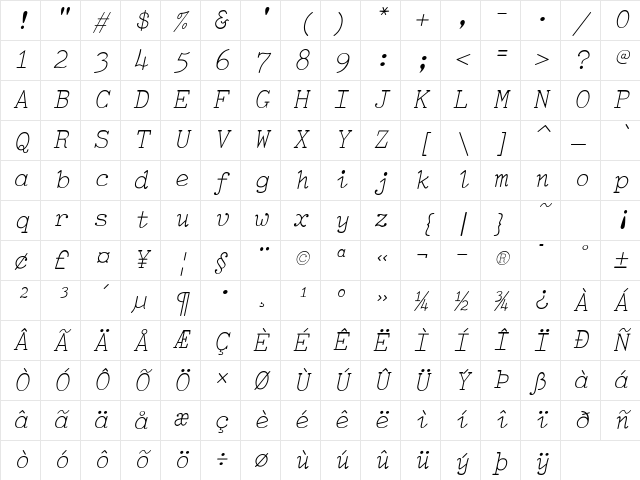
TiredOfCourierThin Italic Free Font
TiredOfCourierThin Italic
Design Context for TiredOfCourierThin
TiredOfCourierThin uses fixed-width spacing throughout, giving it the structured, systematic character associated with coding environments and technical documentation. The slanted form adds forward momentum and visual energy. Its slender proportions lend an understated elegance to any composition.
Pro Tip: Use TiredOfCourierThin with slightly increased line-height for extended reading - fixed-width spacing can feel dense in longer passages without extra breathing room.